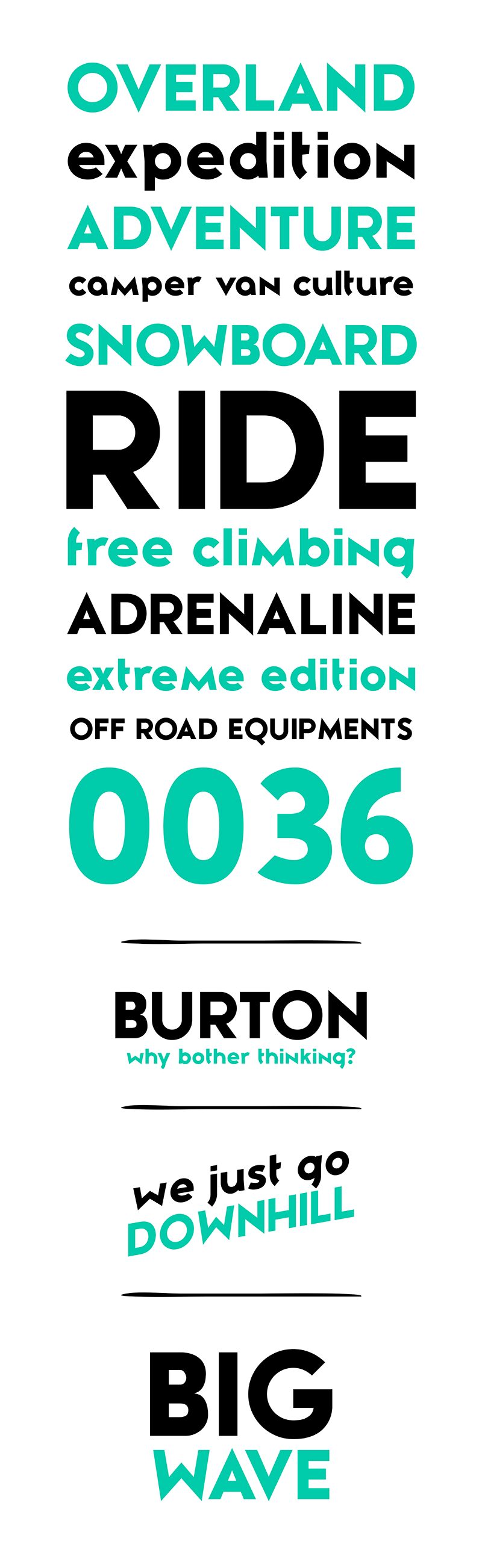
Zeronero is a Geometric Sans Serif Font.
Simple geometric shapes influence the design of this typeface, the construction follow the rules of Roman Capital letter but give special importance to triangles and circles.
Zeronero is optimized for web and give its best as Display Font, suitable for titles, logos, advertising and billboards.
Zeronero Family:
Zeronero Regular